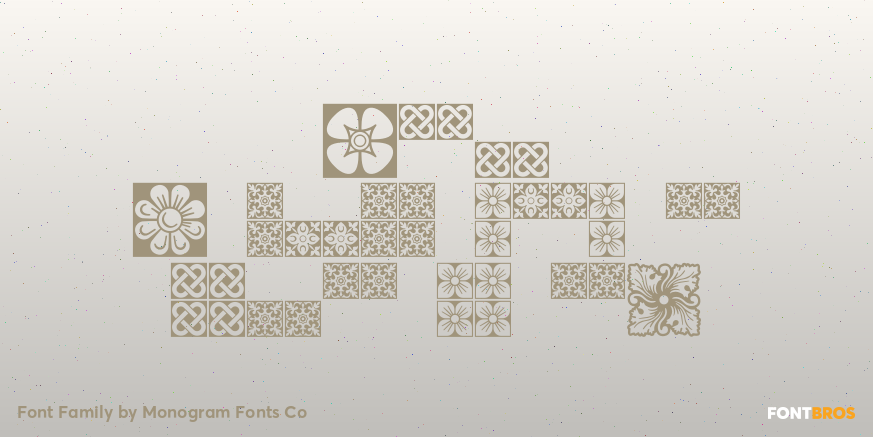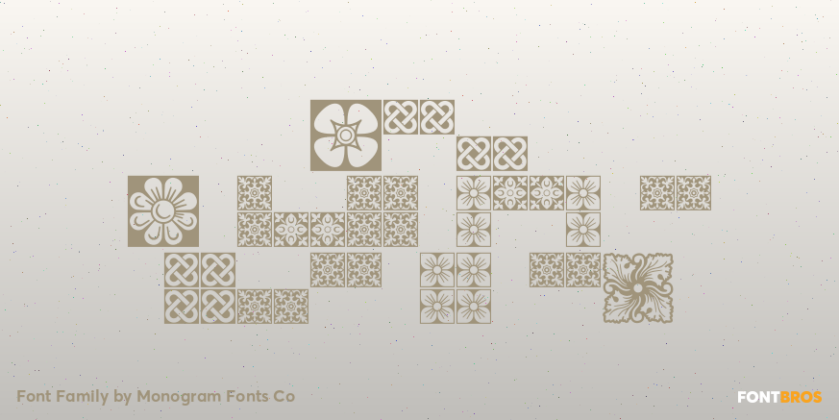
MFC Spindler Borders
About MFC Spindler Borders
The inspiration source for MFC Spindler Borders is a collection of border treatments revived from the ?Catalog 25 TYPE FACES? by Barnhart Brothers & Spindler. The border designs were recreated from two different border sets, ?Classic Art Borders? and…